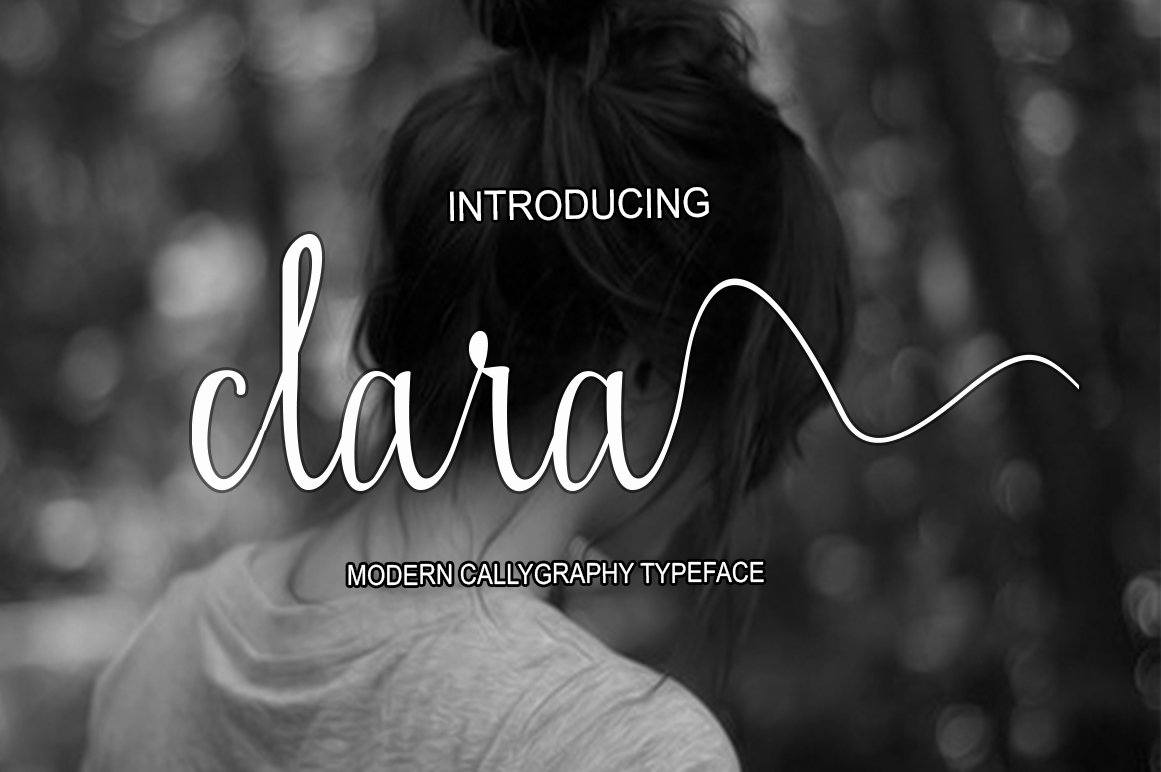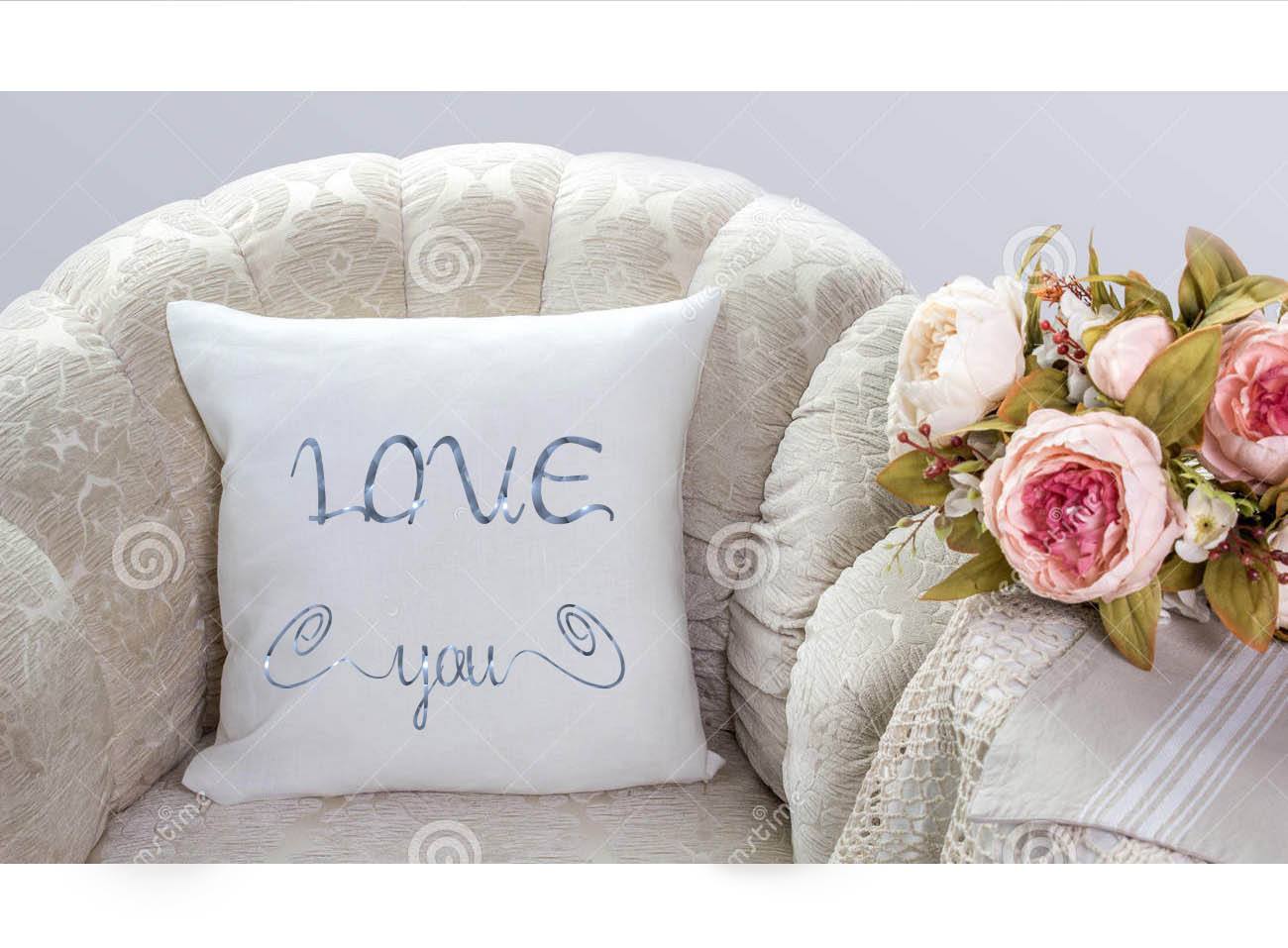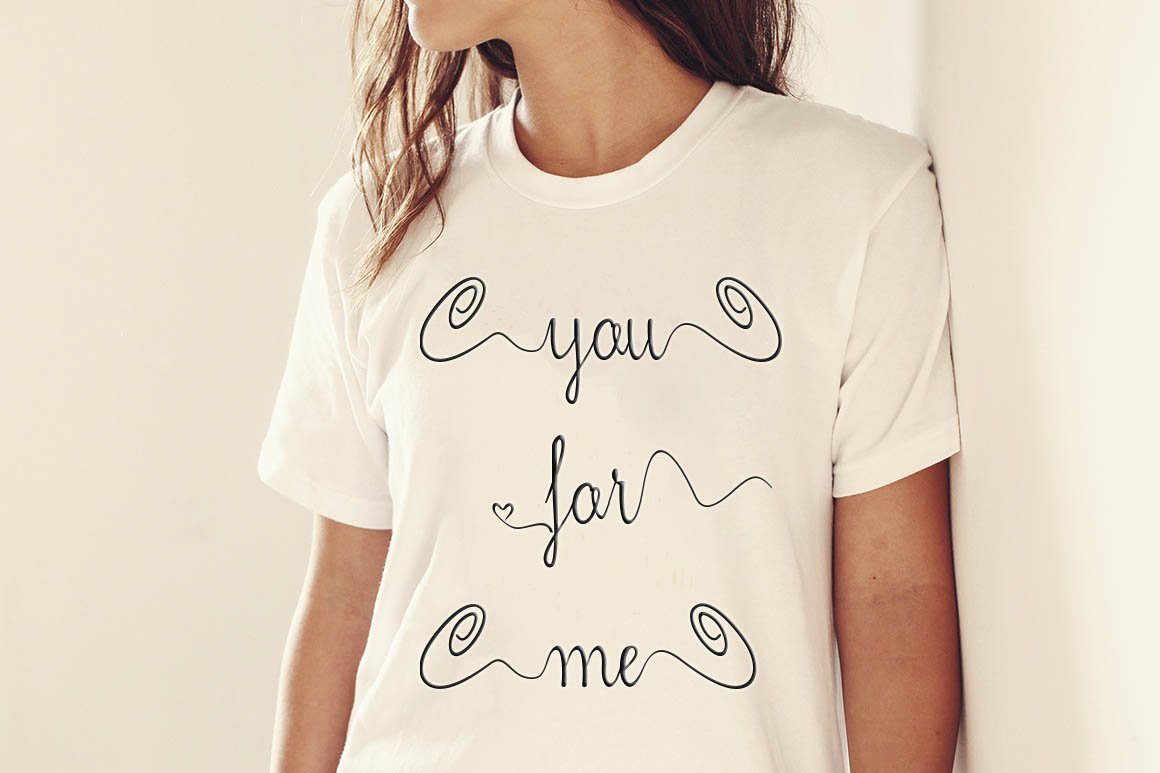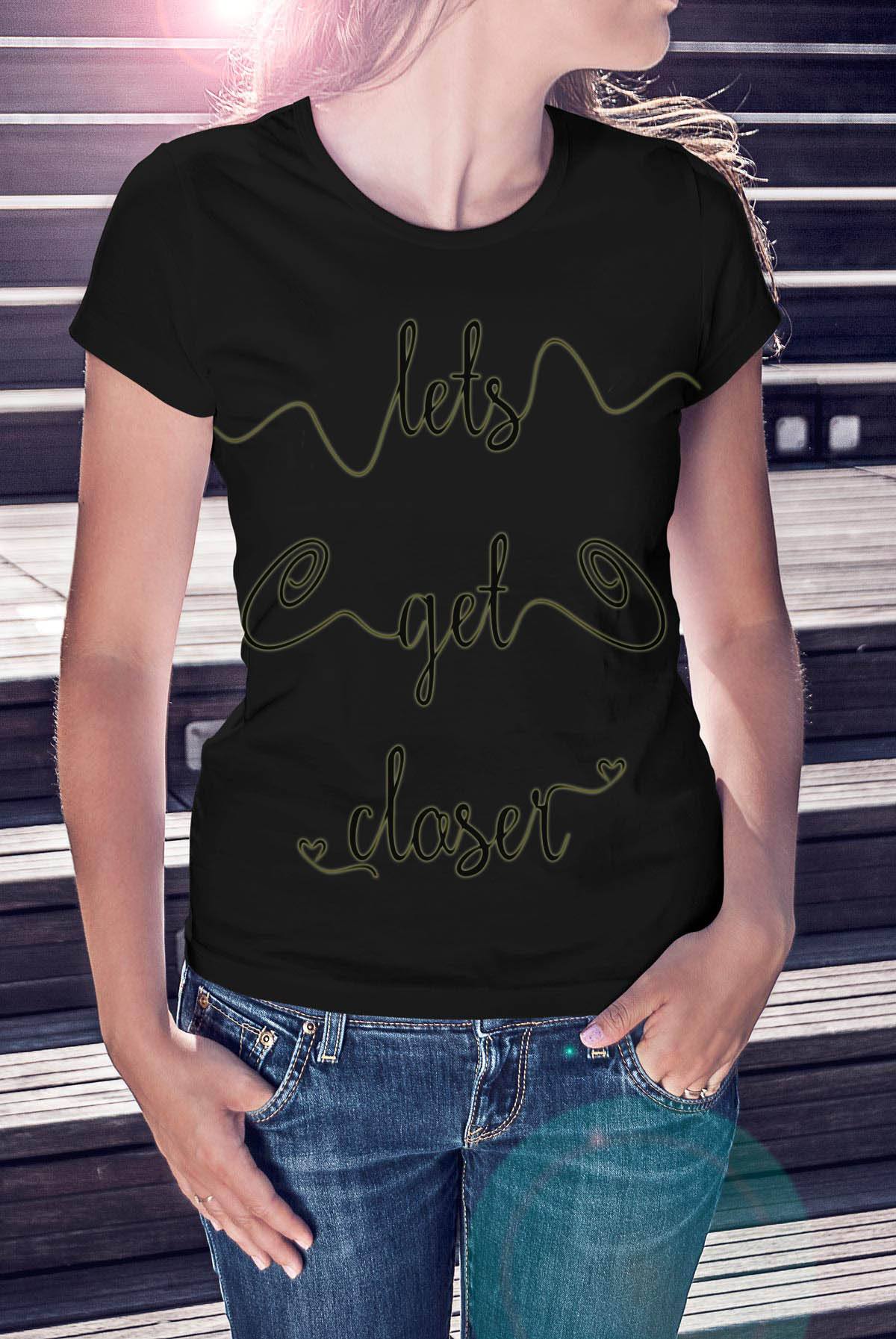
Clara
About Clara
clara script Calligraphy. This font was designed by handwriting, and it has a modern and unique forms of calligraphy, the writing style is very natural.The Features of this fonts is; Standart ligatures Stylistic Alternates Contextual Alternates Stylistic sets swash File font clara script Include; clara script OTF clara script TTF Programs that support in this font is a Photo Shop, Adobe Illustrator, Adobe Indesign, Corel Draw and Microsoft Office.Can be used for various purposes.such as headings, logos, wedding invitation, t-shirt, letterhead, signage, lable, news, posters, badges etc. To enable the OpenType Stylistic alternates, you need a program that supports OpenType features such as Adobe Illustrator CS, Adobe Indesign & CorelDraw X6-X7 clara script Calligraphy. This font was designed by handwriting, and it has a modern and unique forms of calligraphy, the writing style is very natural.The Features of this fonts is; Standart ligatures Stylistic Alternates Contextual Alternates Stylistic sets swash Programs that support in this font is a Photo Shop, Adobe Illustrator, Adobe Indesign, Corel Draw and Microsoft Office.Can be used for various purposes.such as headings, logos, wedding invitation, t-shirt, letterhead, signage, lable, news, posters, badges etc. To enable the OpenType Stylistic alternates, you need a program that supports OpenType features such as Adobe Illustrator CS, Adobe Indesign & CorelDraw X6-X7 clara script Calligraphy. This font was designed by handwriting, and it has a modern and unique forms of calligraphy, the writing style is very natural.The Features of this fonts is; Standart ligatures Stylistic Alternates Contextual Alternates Stylistic sets swash Programs that support in this font is a Photo Shop, Adobe Illustrator, Adobe Indesign, Corel Draw and Microsoft Office.Can be used for various purposes.such as headings, logos, wedding invitation, t-shirt, letterhead, signage, lable, news, posters, badges etc. To enable the OpenType Stylistic alternates, you need a program that supports OpenType features such as Adobe Illustrator CS, Adobe Indesign & CorelDraw X6-X7